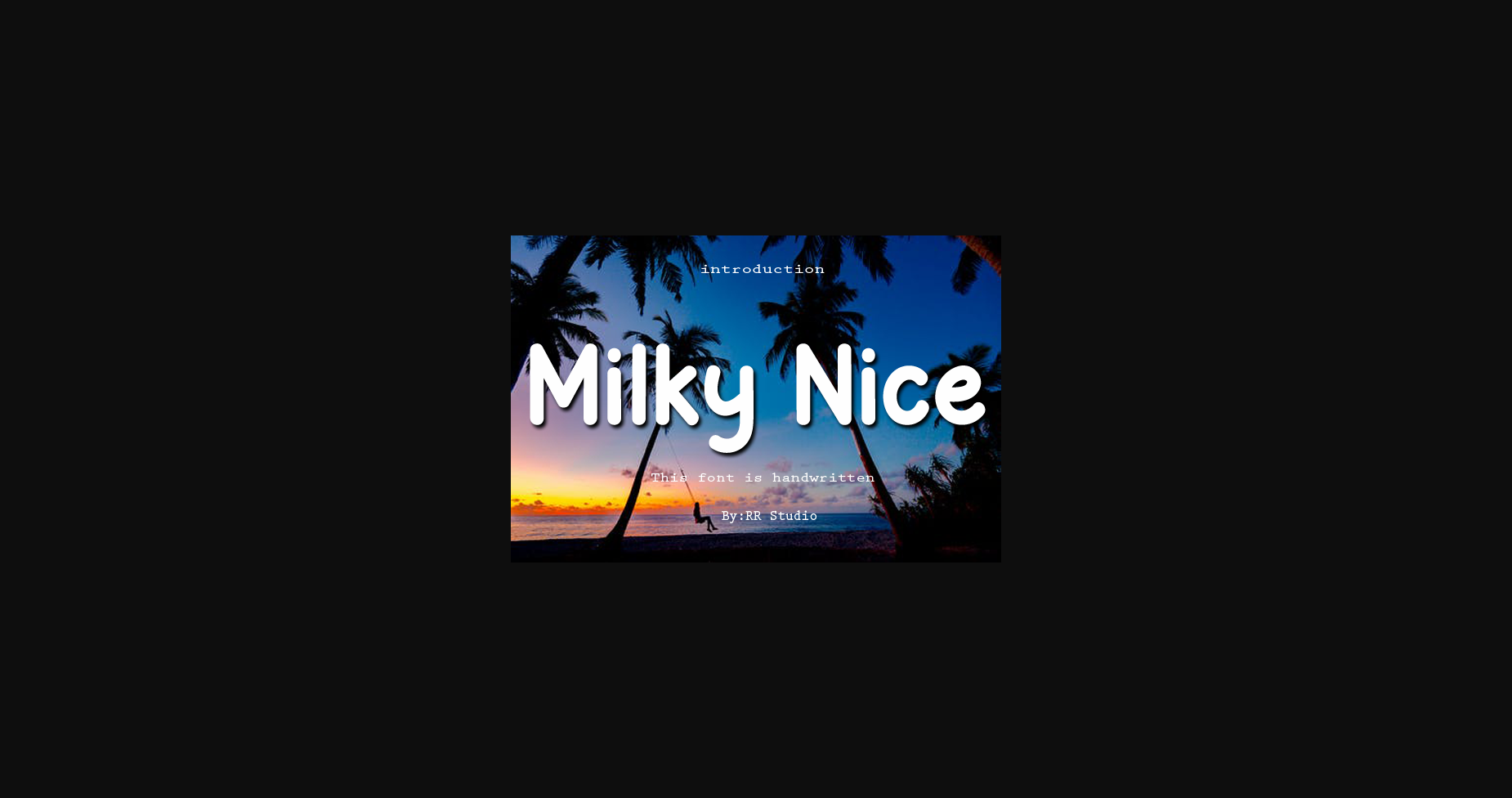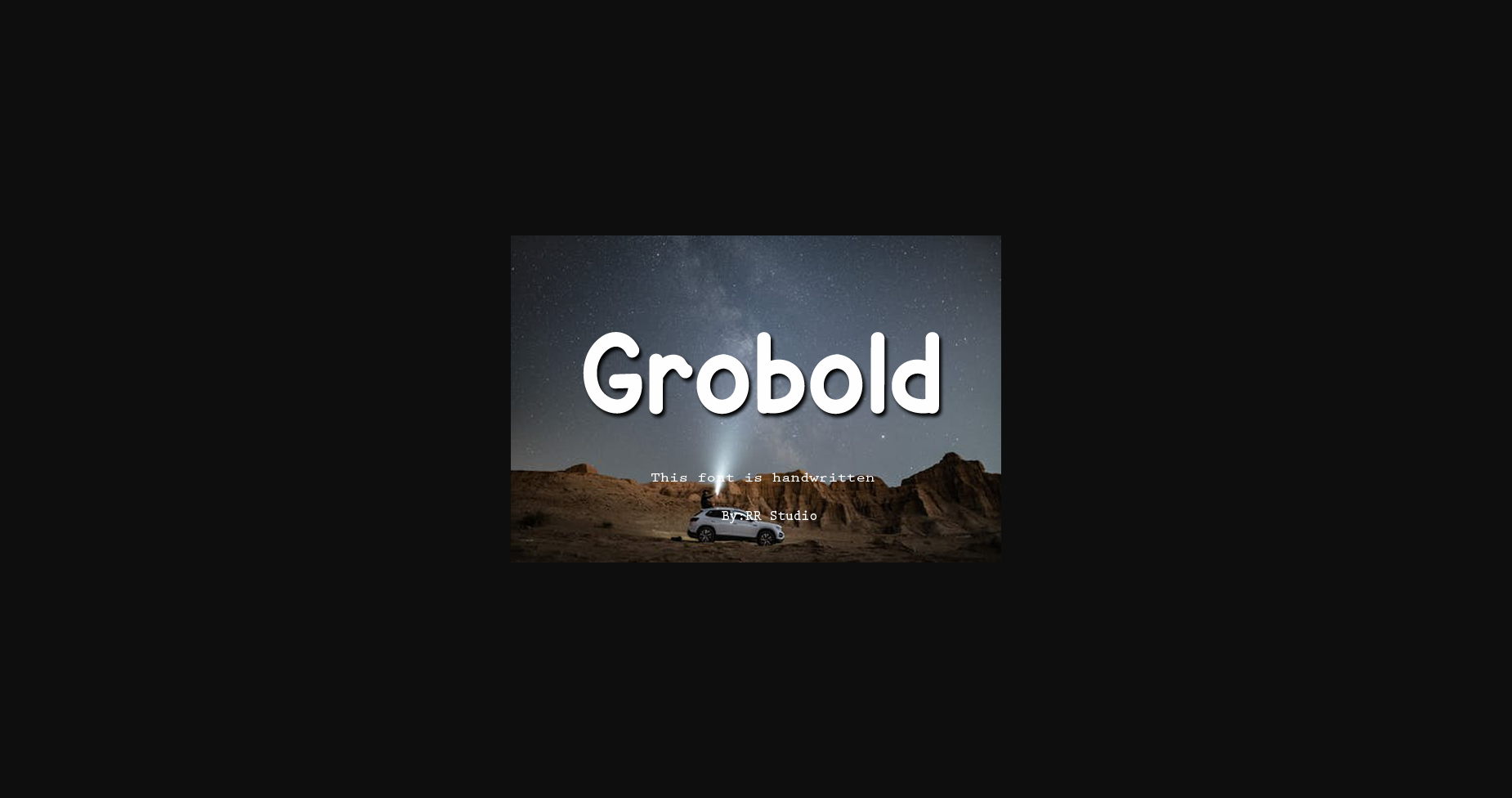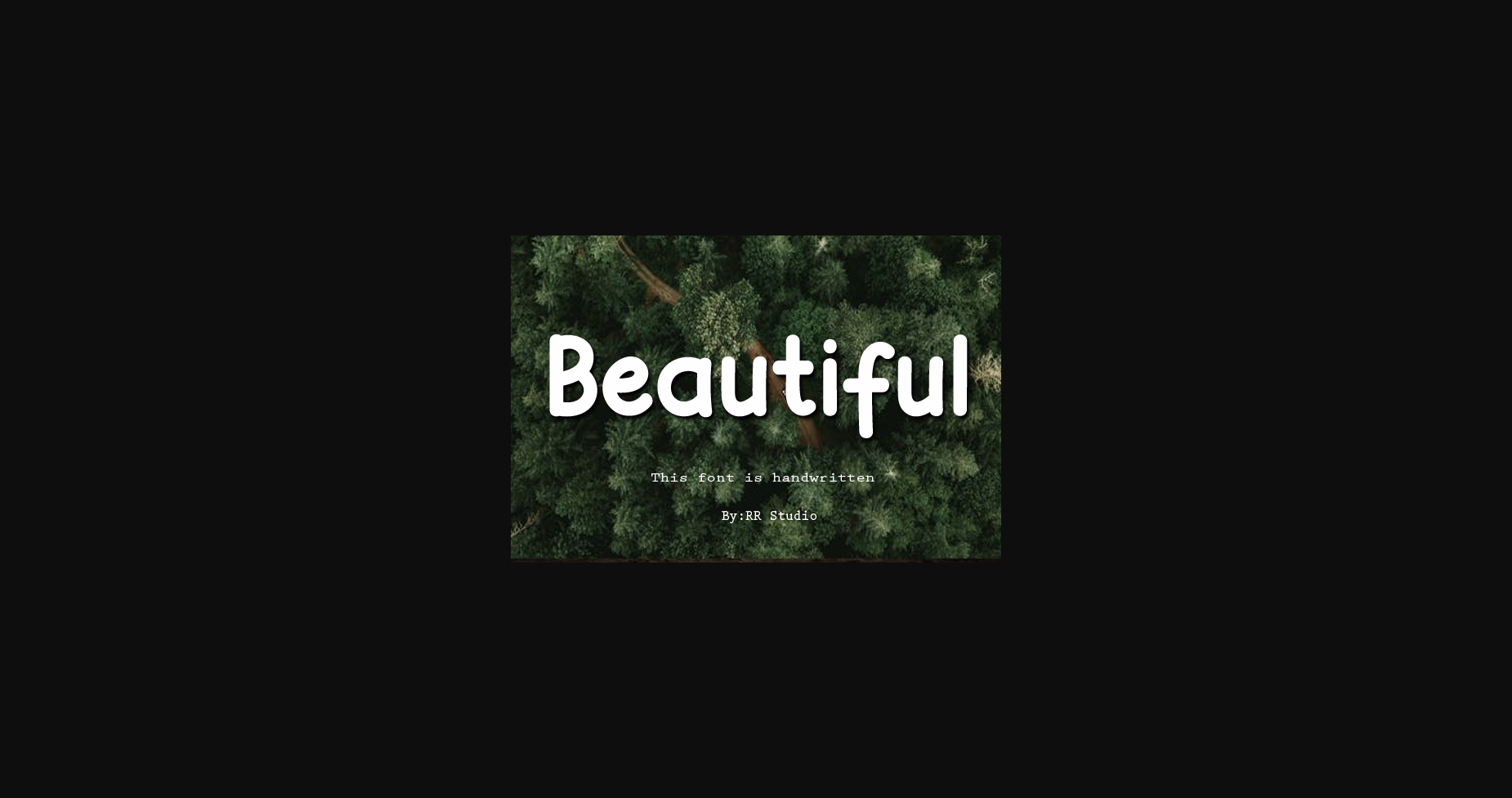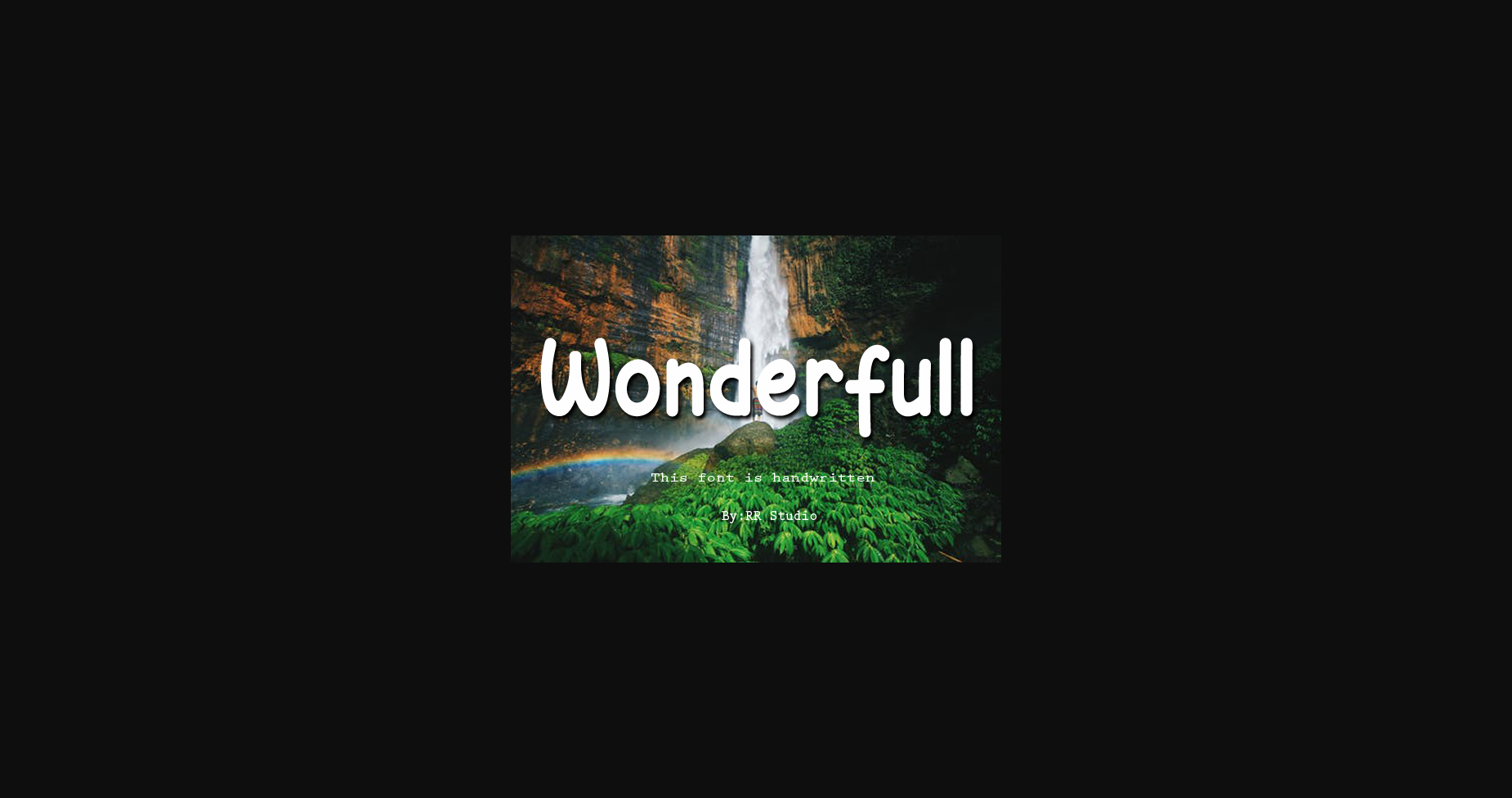
Milky Nice Font
About Milky Nice Font
Milky Nice is a ravishing sans serif font. This versatile font has a wide spectrum of applications ranging from greeting cards to headlines and is guaranteed to add a unique, stylish feel to your next project.